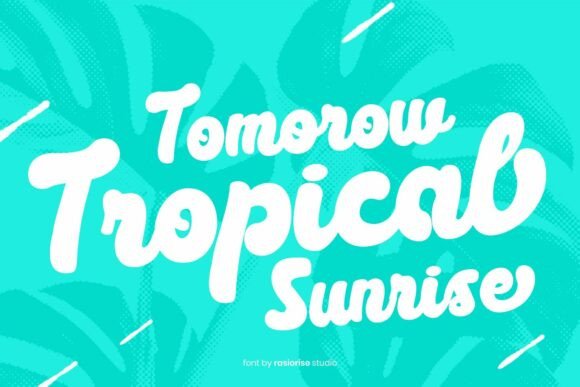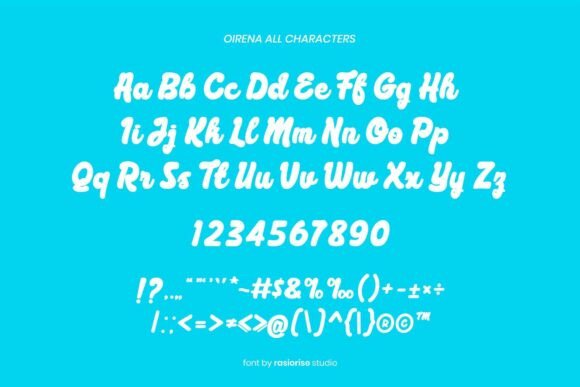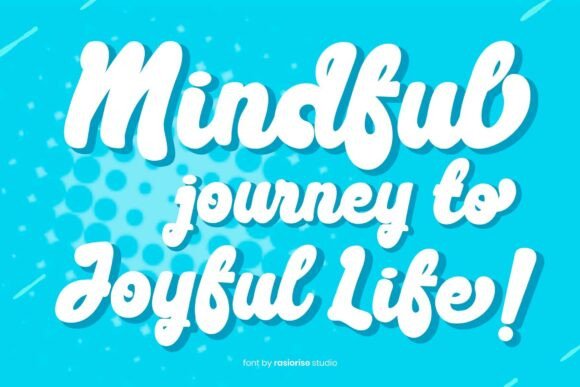
Introduction to Oirena Font
Oirena is a lovely and timeless handwritten font.
Key Features of Oirena Font
Why Choose Oirena Font?
Oirena Font offers exceptional quality and versatility, making it a valuable addition to your design toolkit. Whether you’re creating for personal projects or commercial use, Oirena Font delivers professional results.